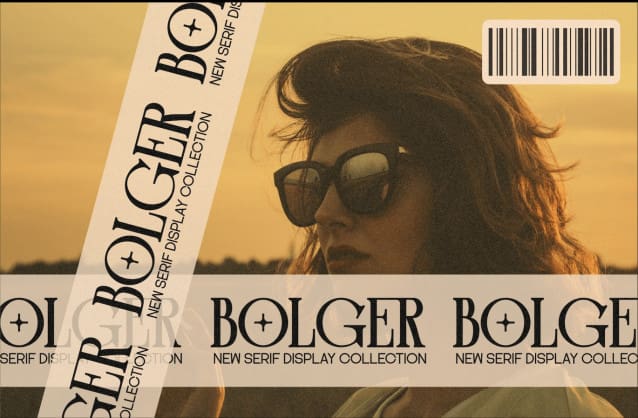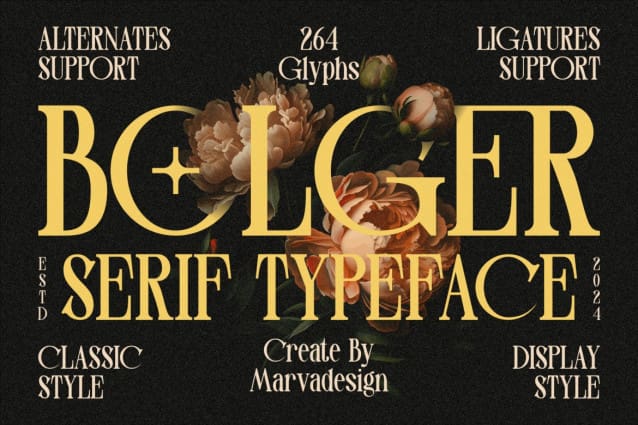
Bolger Font
Bolger Font – Serif Display Font Font, authentic display font. The font is suitable for all branding projects like Logo, Template Design, Products and many more. It is exceptional in a wide range of contexts